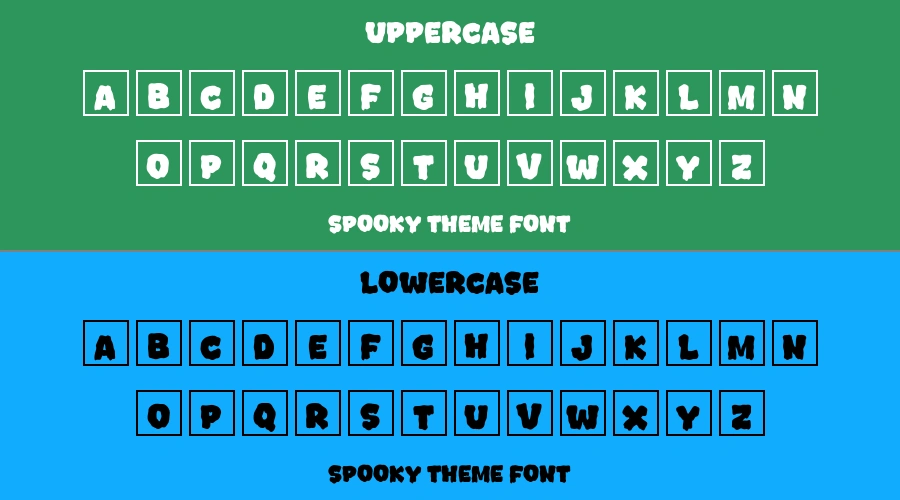
About Spooky Theme Font
Spooky Theme Font embodies typographic excellence through its masterful combination of width contrast and tradition. Created for architectural plans, this typeface delivers exceptional durability and technical excellence across all applications. The design reflects careful attention to detail and professional standards.
Advanced capabilities include distinctive expressive curves and versatile mid-word alternates, giving designers creative control. When used in instruction steps, Spooky Theme Font exhibits remarkable special effects. The harmonious balance between descender depth and industrial acceptance sets this typeface apart.